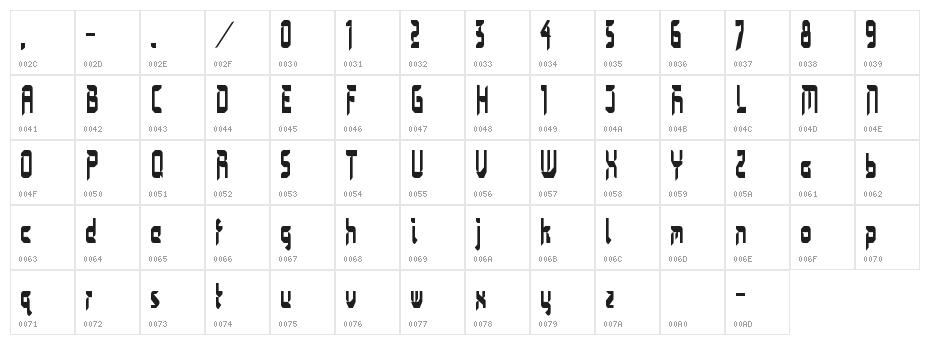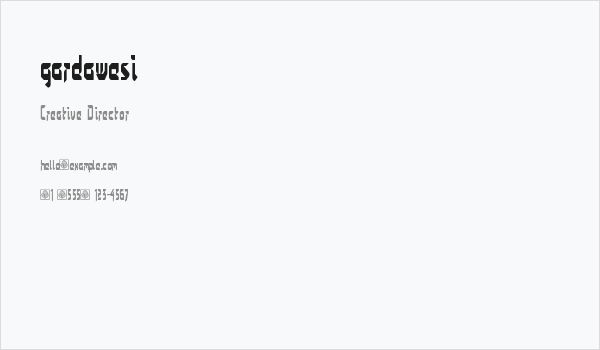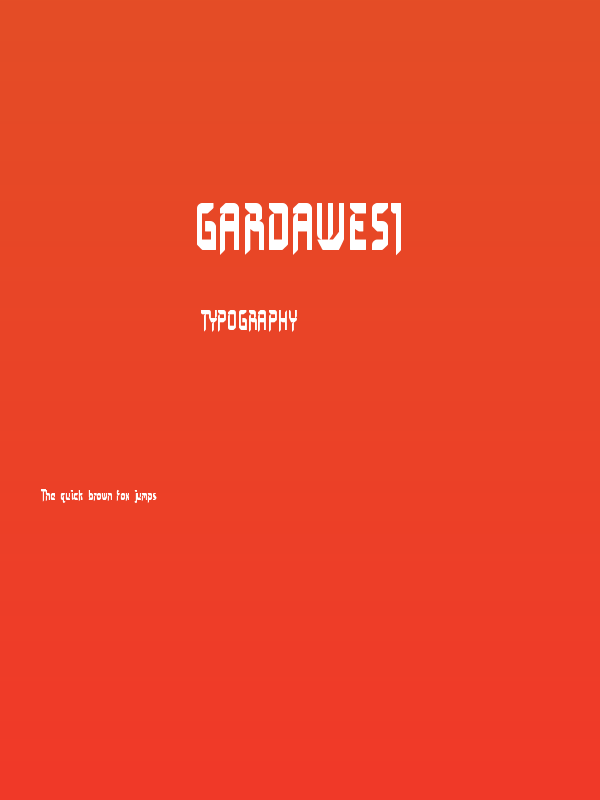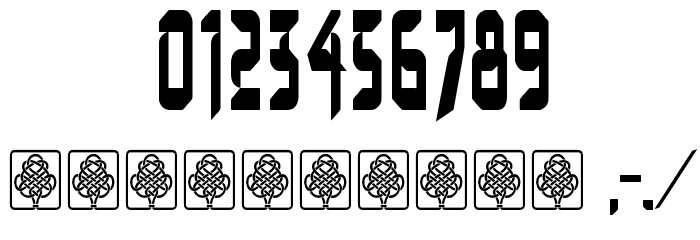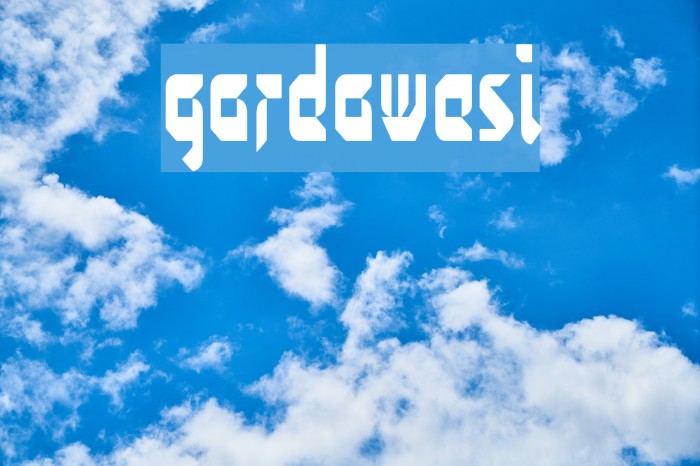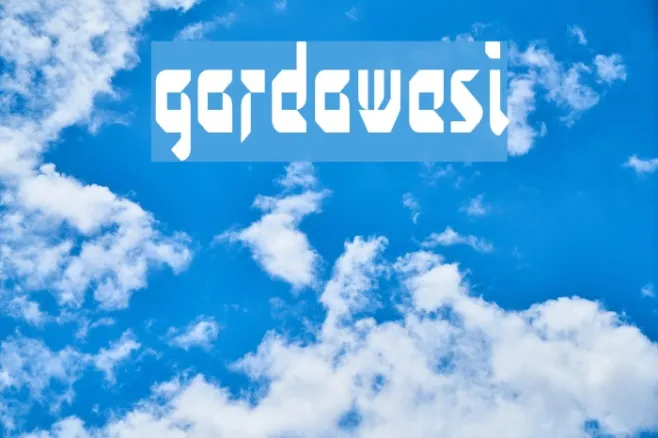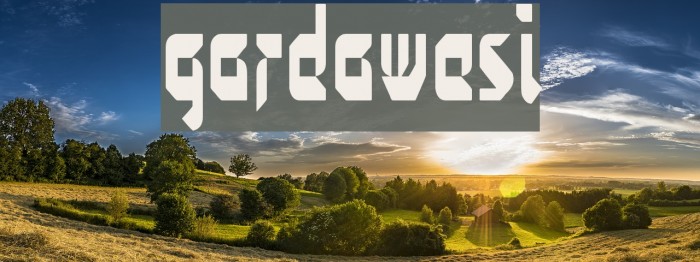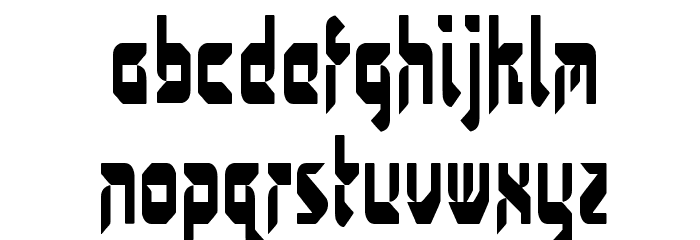
gardawesi Font
gardawesi Description
This font features a bold and geometric design with sharp angles and a futuristic aesthetic. The uppercase letters are distinct with strong vertical and horizontal lines, creating a sense of stability and modernity. The lowercase letters maintain the geometric theme, offering a cohesive look across different cases. Numbers are equally bold and angular, ensuring readability while maintaining the overall style. Special characters are designed to match the font's unique aesthetic, making them suitable for creative and modern projects.
| Proposed Projects | Ideal for sci-fi themed designs, modern branding, posters, and digital media projects. |